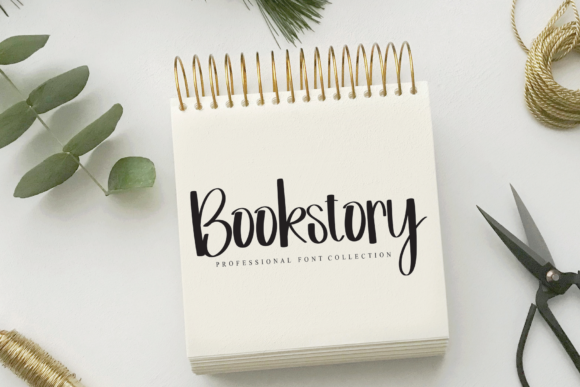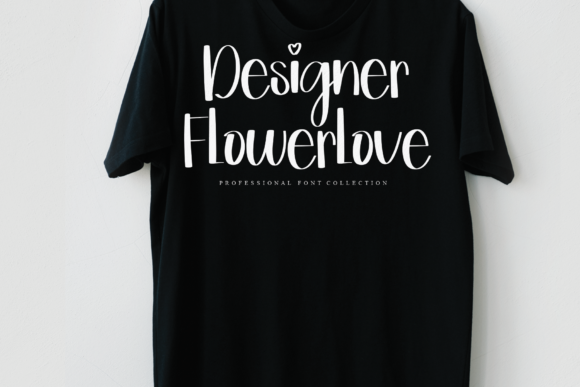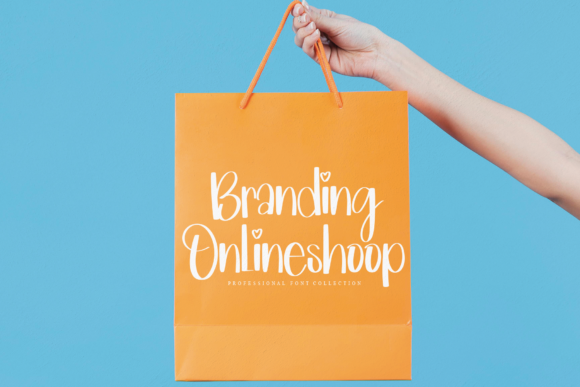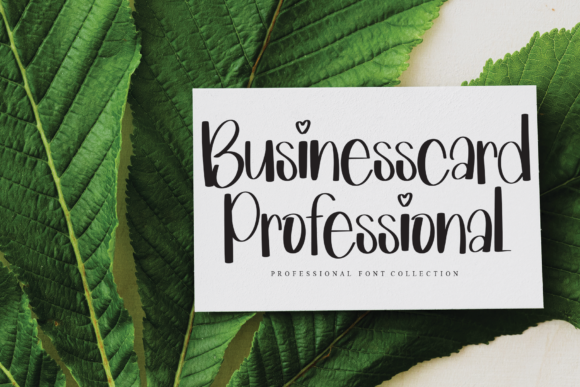
Mandala Vintage Font
About Mandala Vintage Font
Mandala Vintage is a neat and sleek handwritten font. It has nicely rounded characters and a lovely cursive style, perfect for any project that requires a natural, authentic look!